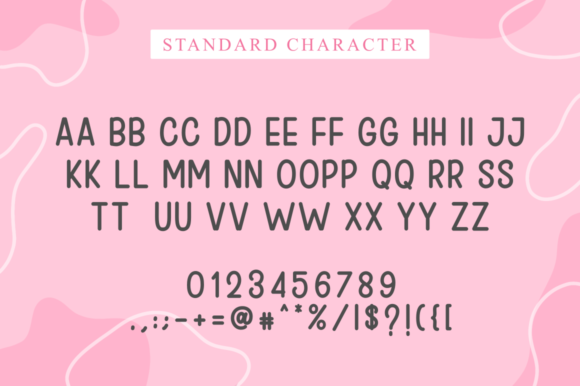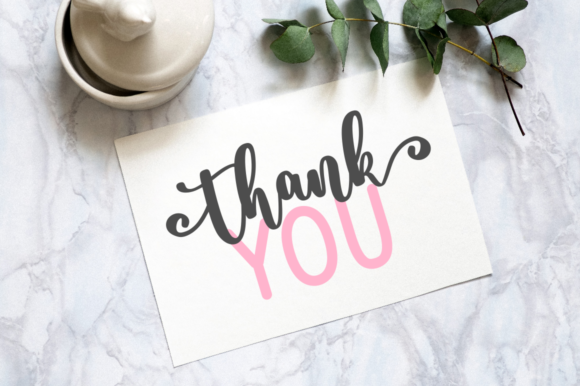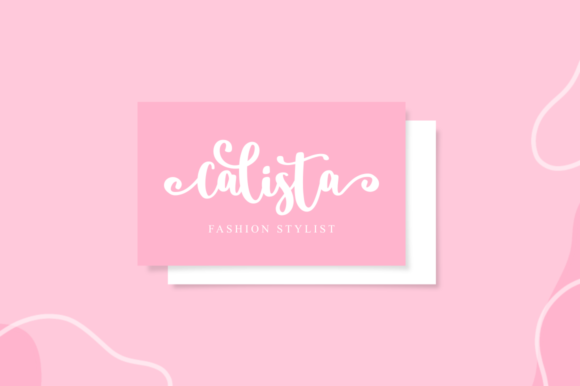
About Hay Bella Font
Hay Bella consists of two fonts (script and sans serif) designed to complement each other perfectly. Together or apart, these fonts are ideal for adding a chic and cheery touch to your crafts. This font is PUA encoded which means you can access all glyphs and swashes with ease!